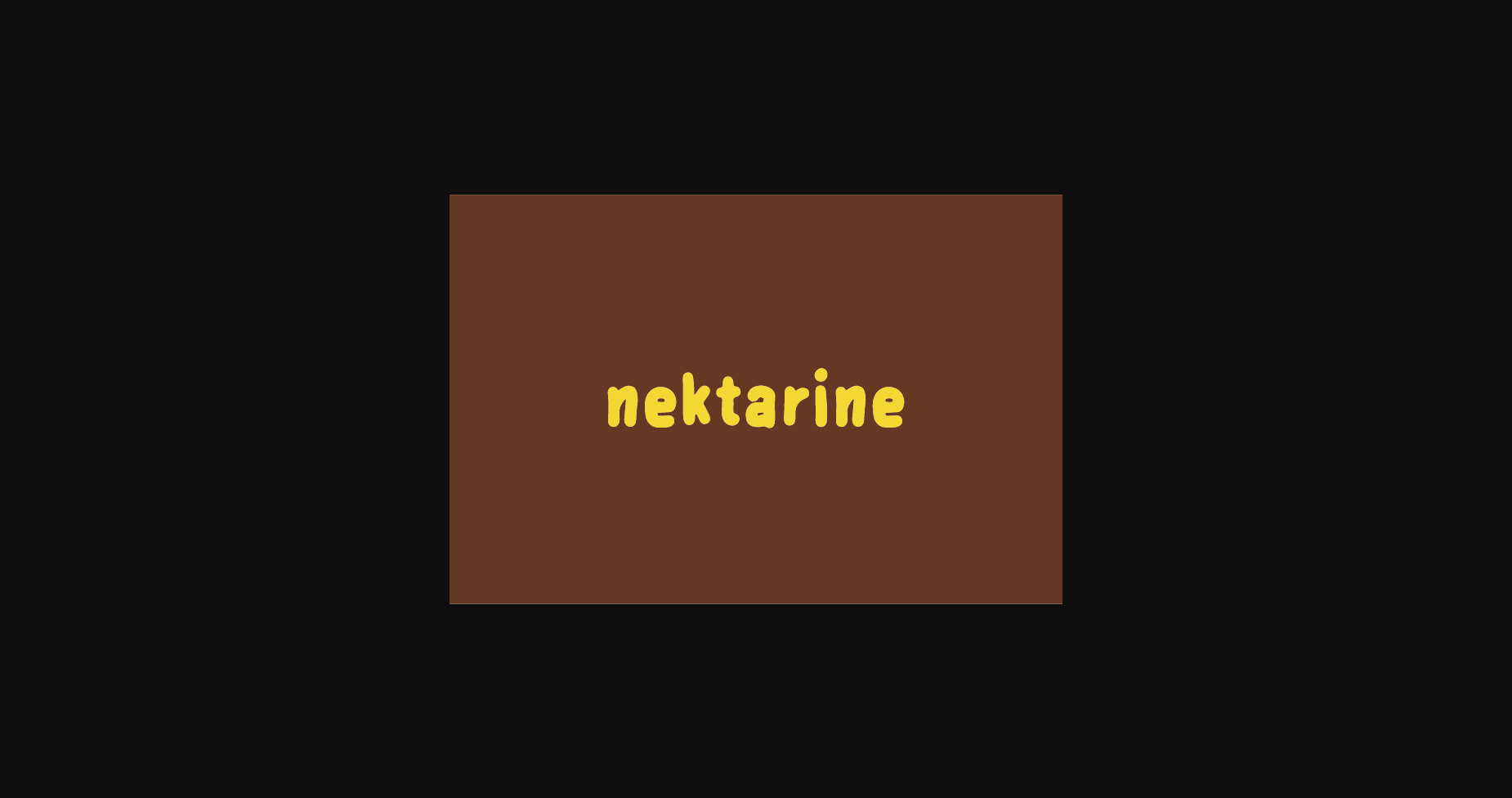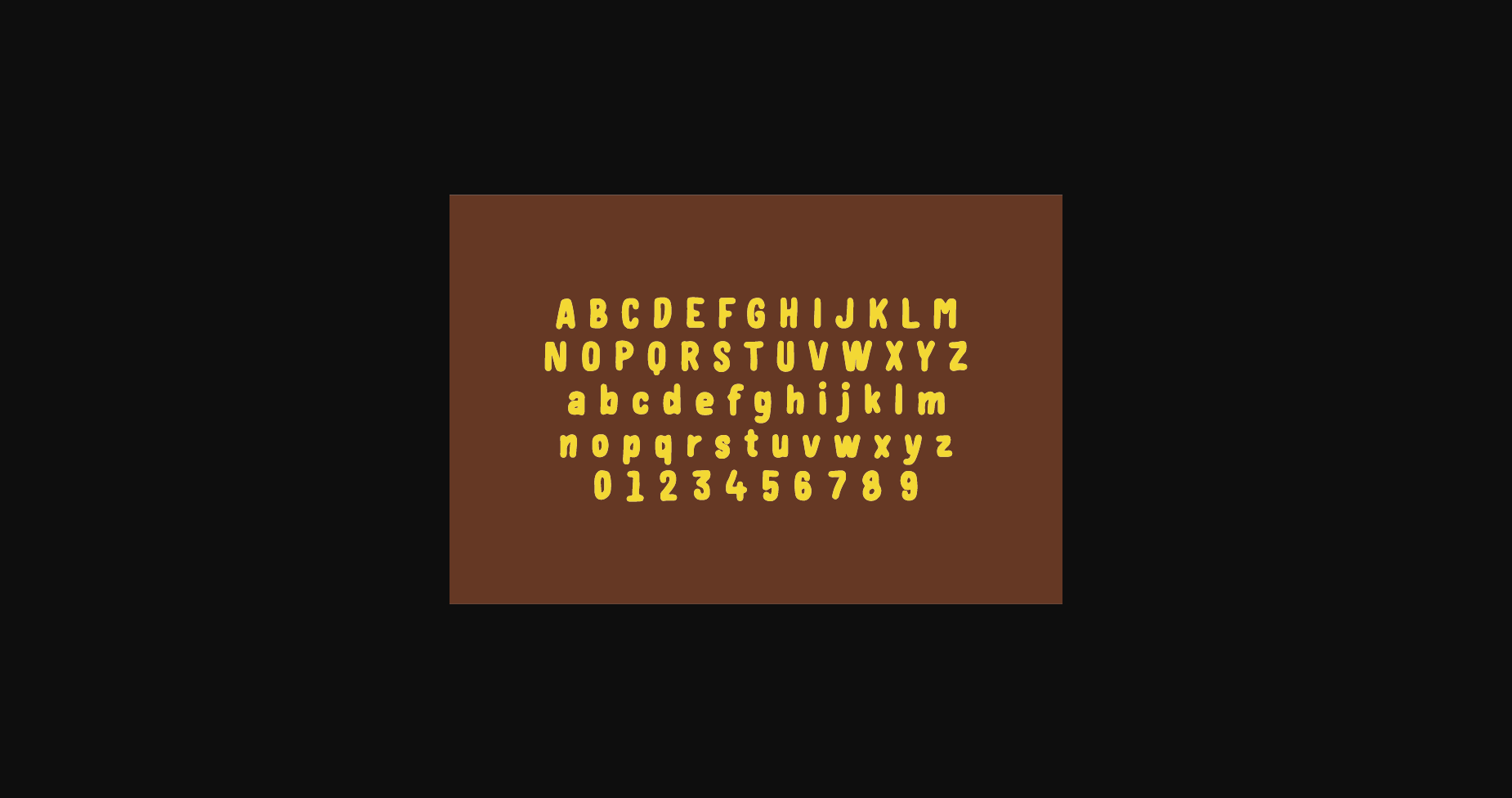
About Nektarine Font
Nektarine is a cool and casual sans serif font. It can easily be matched to an incredibly large set of projects, so add it to your creative ideas and notice how it makes them stand out!